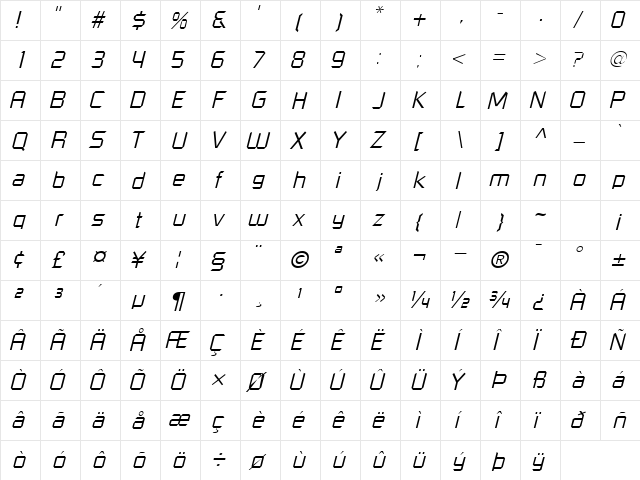
ShoestringLightSSK Italic Font Preview
Design Context for ShoestringLightSSK Typeface
ShoestringLightSSK takes a measured approach to typography — its balanced proportions and neutral character make it a reliable workhorse for both digital and print work. Its italic angle brings a sense of urgency and motion to the letterforms. The delicate stroke weight brings airiness and refinement to layouts.
Pro Tip: Try ShoestringLightSSK for annotation and caption copy alongside an upright companion — the contrast in angle creates a dynamic but ordered typographic system.